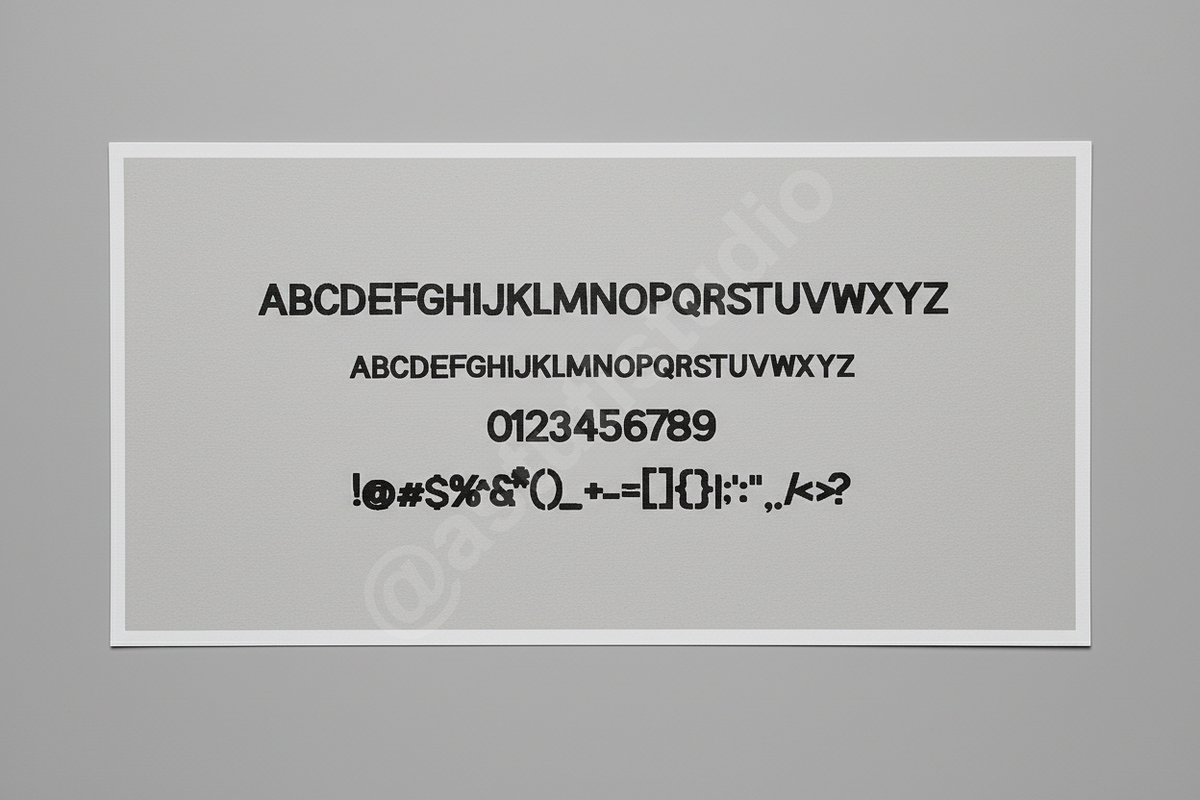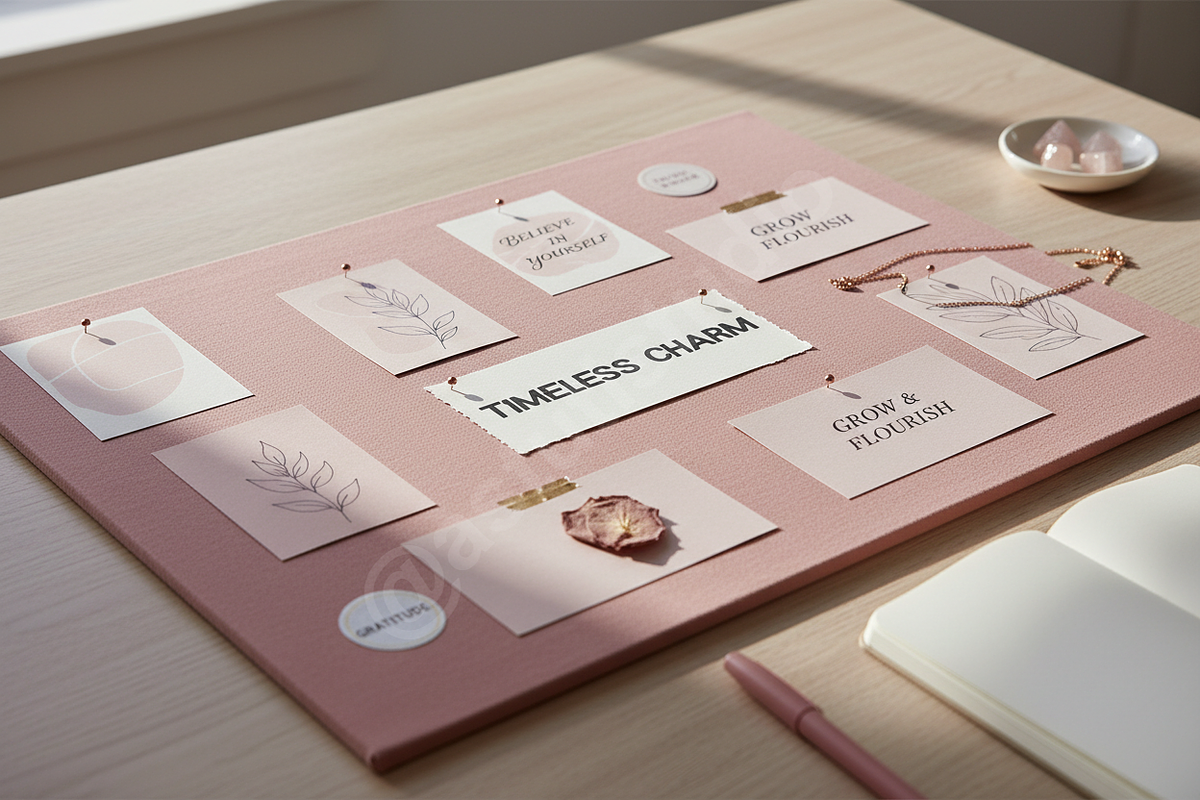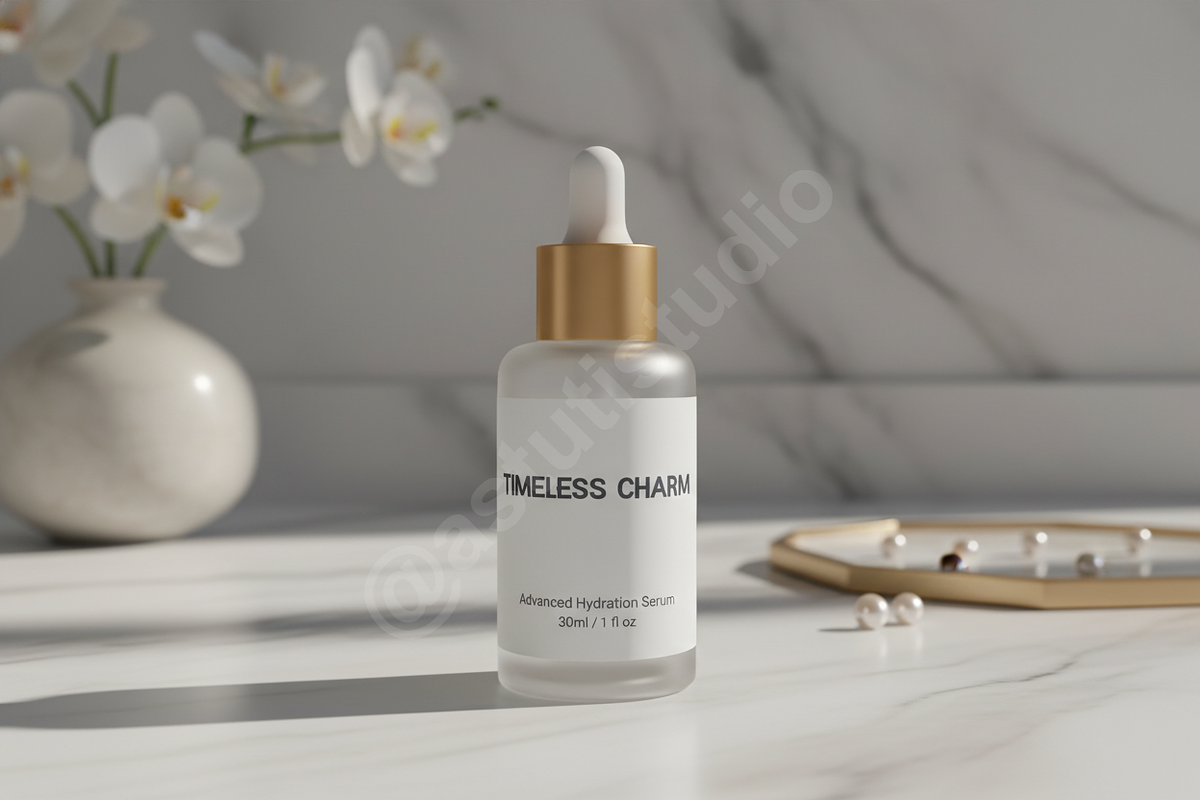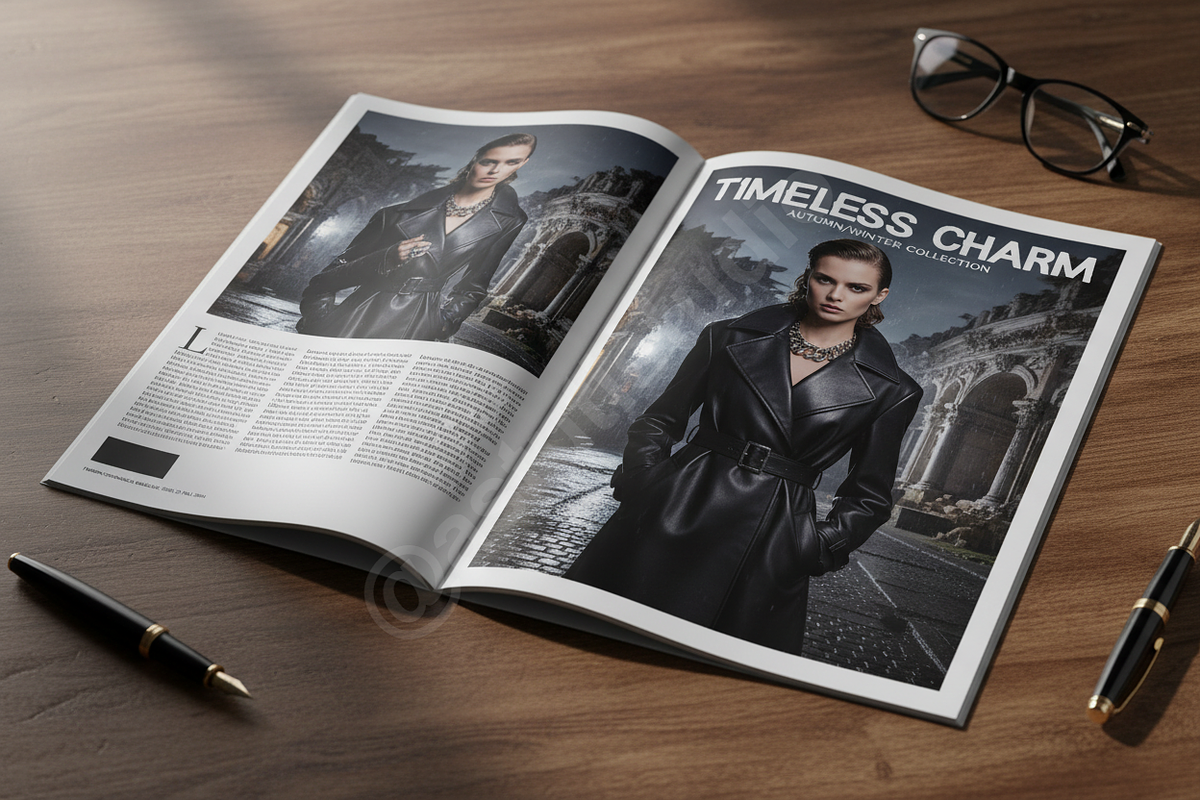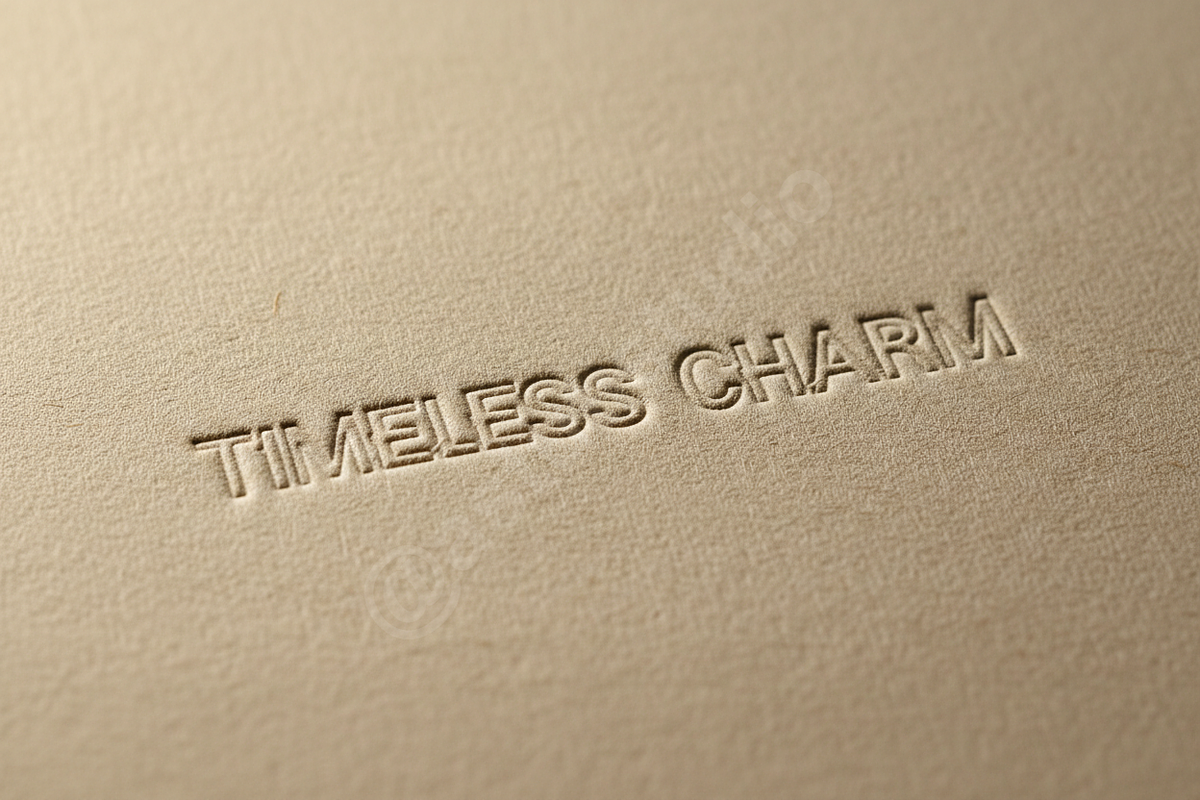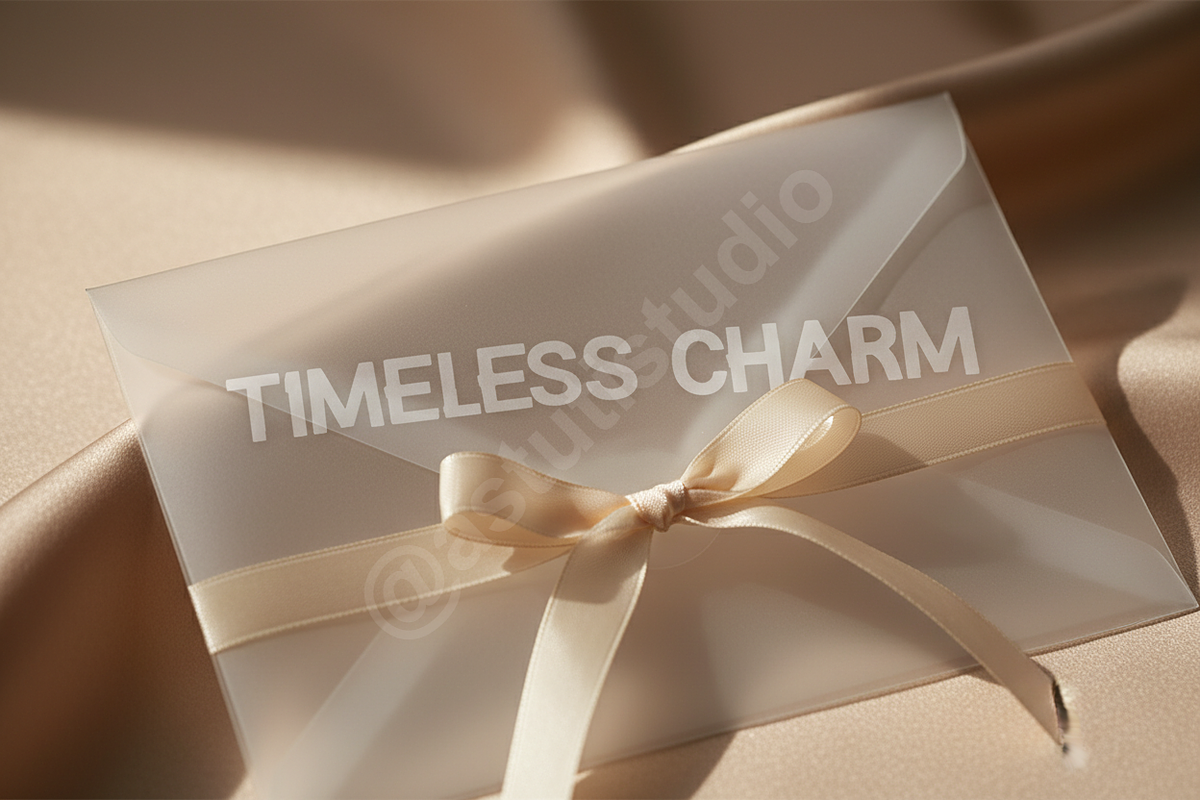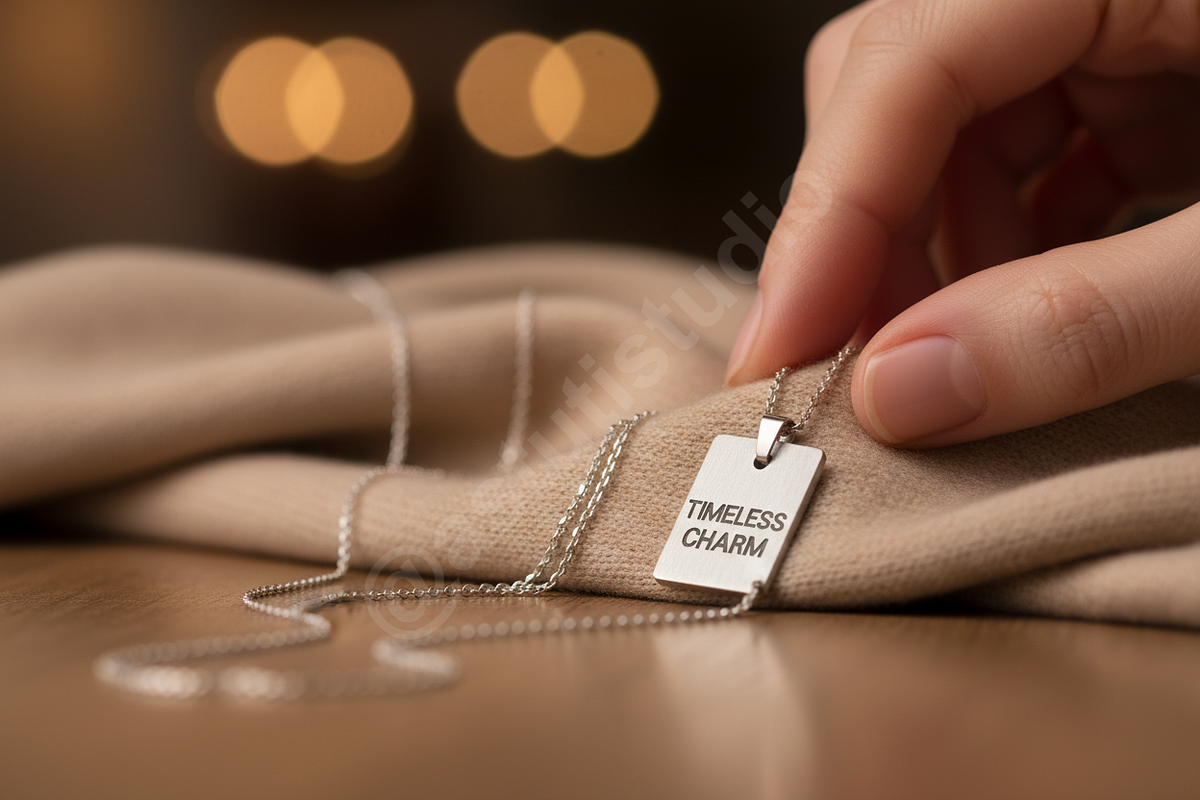
Jode | A Refined Modern Serif for Lu
JODE – THE ESSENCE OF TIMELESS ELEGANCE
Jode is a premium serif typeface meticulously crafted for high-end aesthetics and sophisticated visual storytelling. Inspired by the sharp precision of modern fashion and the grace of classic editorial design, Jode offers a perfect balance of high-contrast strokes and refined curves. It is the definitive choice for designers looking to elevate their projects with a sense of prestige and clarity.
PERFECT FOR:
- Luxury Branding & Identity Systems
- Editorial Layouts & High-Fashion Magazines
- Premium Product Packaging
- Sophisticated Social Media Content
- Wedding Stationery & Fine Art Invitations
KEY FEATURES:
- Full Character Set including Uppercase and Lowercase
- A Selection of Elegant Ligatures and Stylistic Alternates
- Comprehensive Multilingual Support
- Clean, Professional Kerning and Spacing
- Versatile Weights for Display and Body Copy